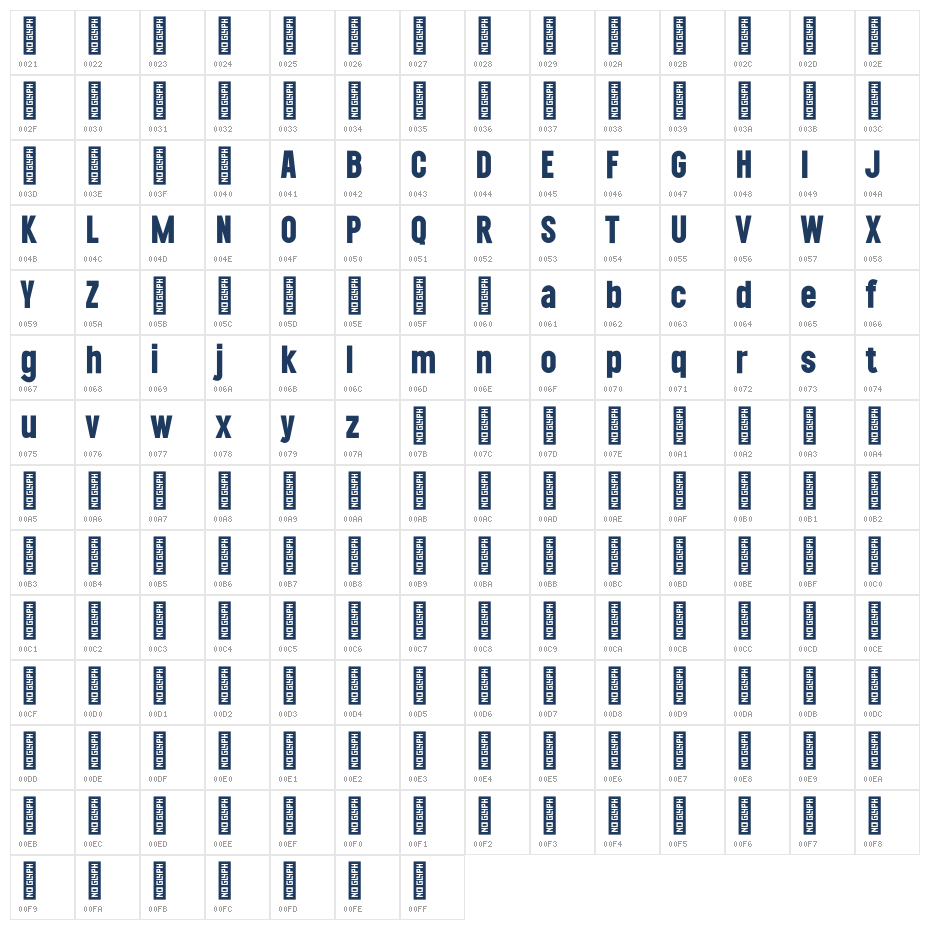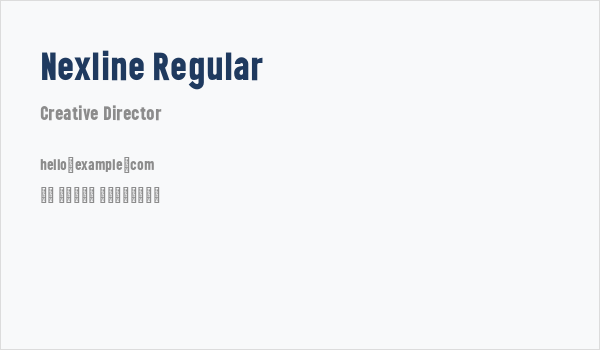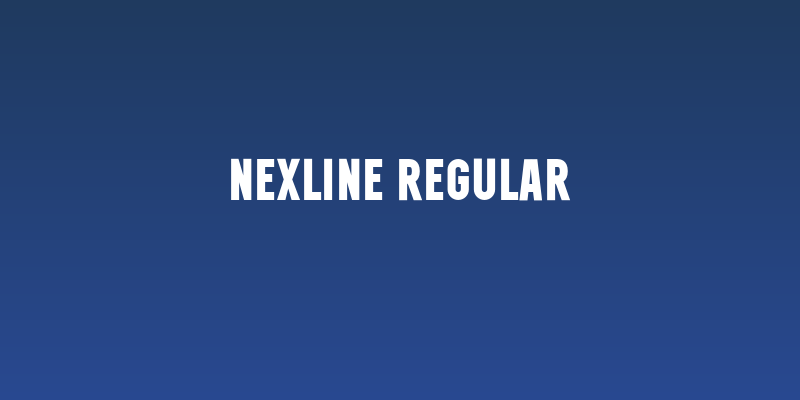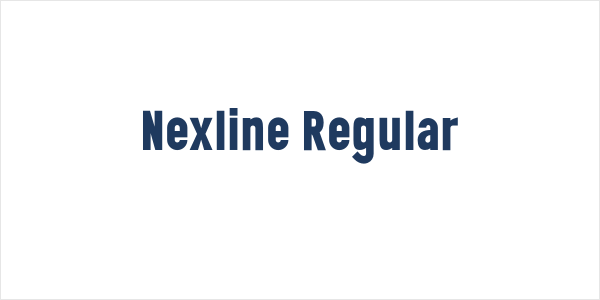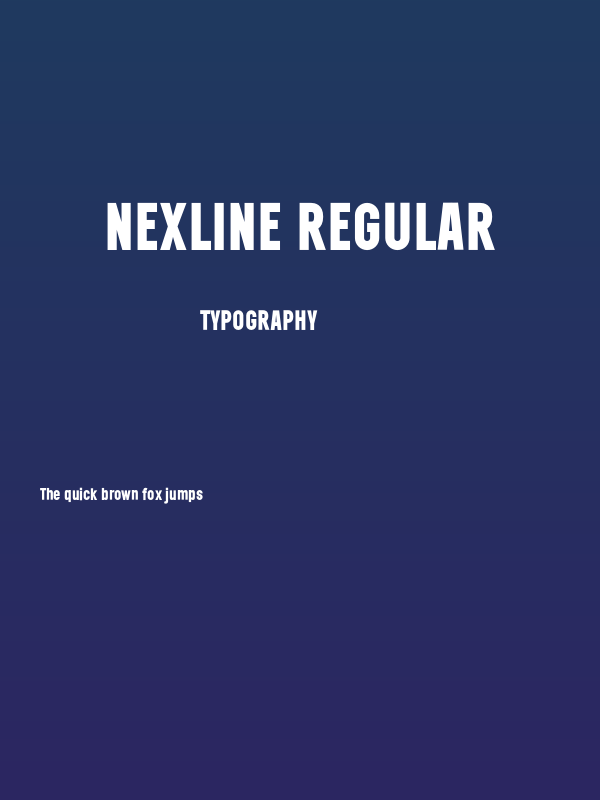
Nexline Regular Font
Nexline Regular Description
Bold, sans-serif typeface with a modern and sturdy appearance, characterized by thick strokes and uniform width.
| Overall Style | Modern, Geometric |
| Use Case | Headlines, Display text, Logos |